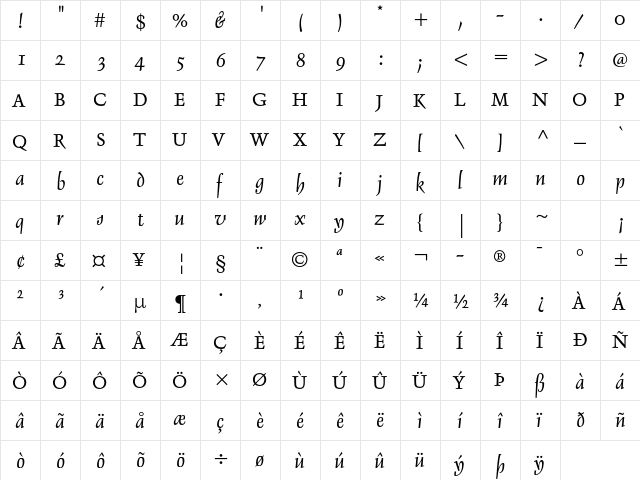
Delphin LT Std 1
| Designer | Georg Trump |
Design Context for Delphin LT Std Typeface
Delphin LT Std takes a measured approach to typography — its balanced proportions and neutral character make it a reliable workhorse for both digital and print work. The delicate stroke weight brings airiness and refinement to layouts.